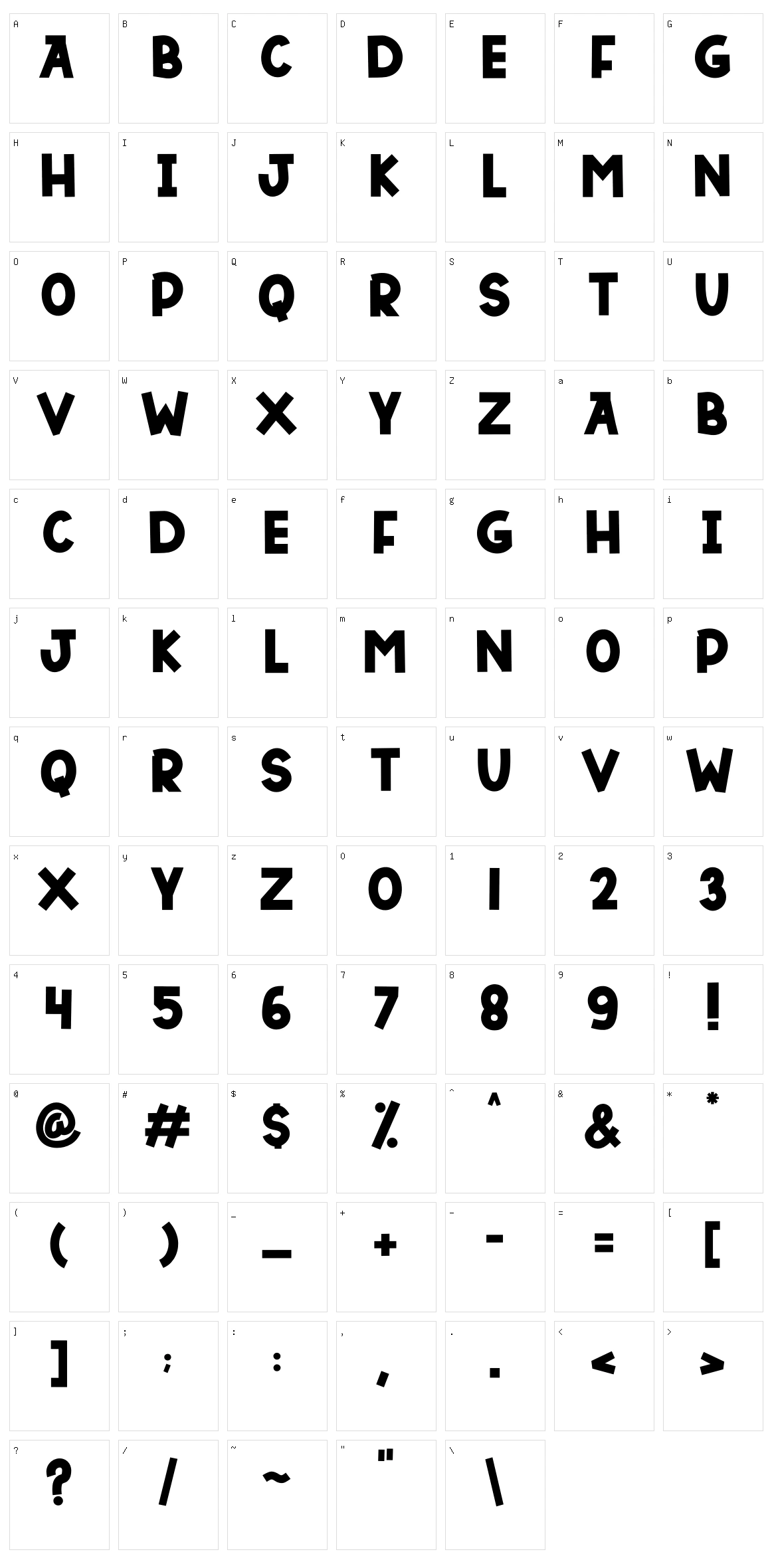
The free font Sweety Baez is carefully designed by The Docallisme - Amry Al Mursalaat, showcasing a thoughtful balance of creativity and usability and falls under the Cartoon font style. When you download the ZIP file, it contains only 71.32 KB of font files, making it lightweight and quick to download. Please review the license details below to understand permitted usage and distribution rights. If license information is not available, we recommend using this font for personal projects only or contacting the author directly for commercial usage permissions.